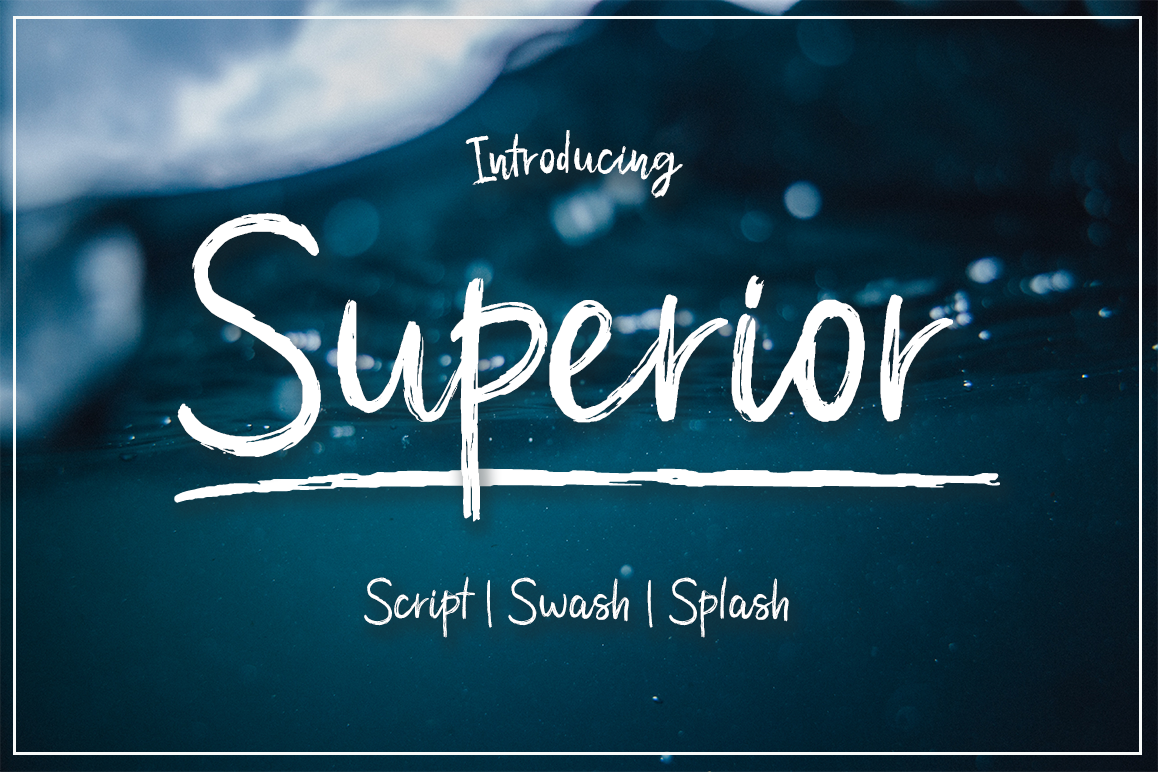
Superior Script
The new font brushed very interesting, also provided some ligatures, stylistic alternates, extra swashes and splashes. This is definitely the best font I've ever created! This font was inspired by the spirit of the ocean, with a little bit of grit in mind. Superior swash includes 26 splashes and 26 swashes, use A-Z for splash and a-z for swash. It's perfect for wedding invitation or your blog. Also, you can create a logo or beautiful frame for your home. Or just use for your small business, book covers, stationery, marketing, magazines and more.i Superior Script OTF, TTF Superior Swash OTF, TTF.